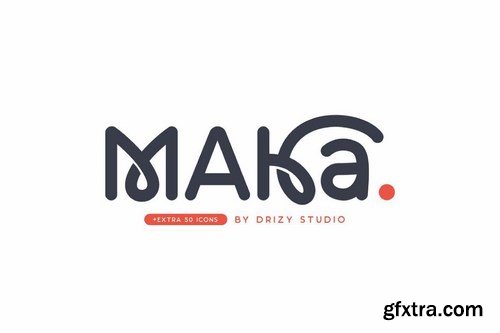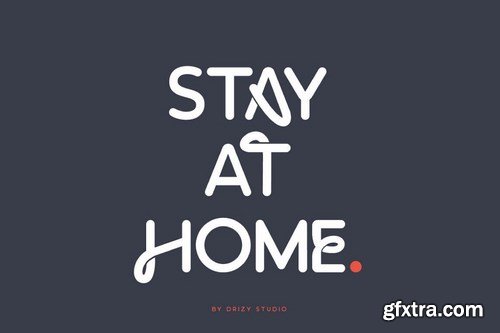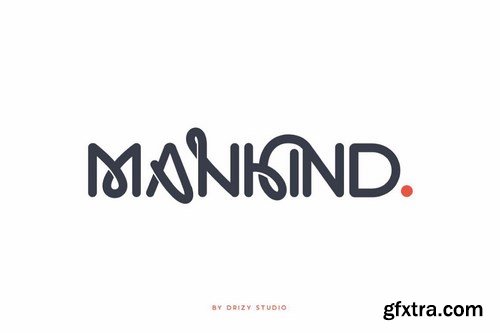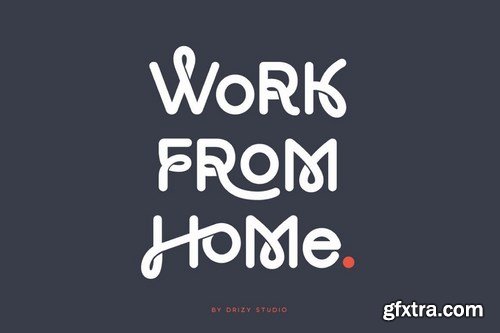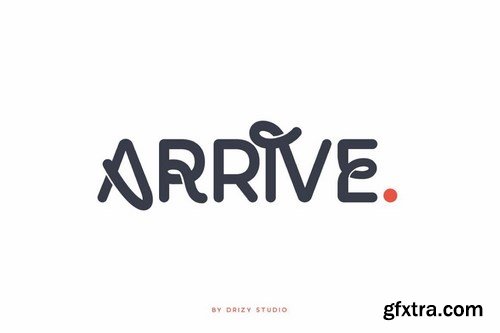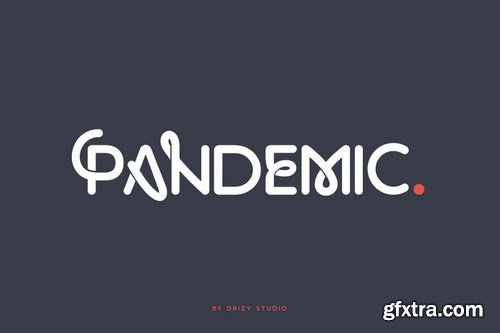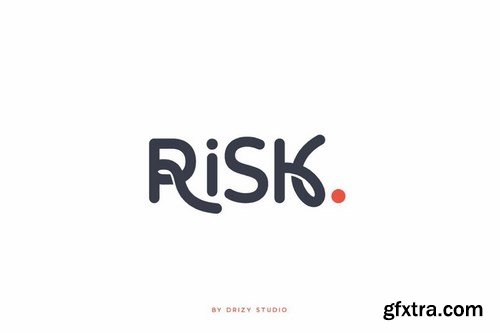
Introducing Maka Typeface! a rounded san serif font with stylistic sets and ligatures! This playful and smooth san serif typeface. Perfect for gorgeous quotes, logos, badge & titles, Maka will pair beautifully with many sans serif fonts and work well with whatever project you're working on.